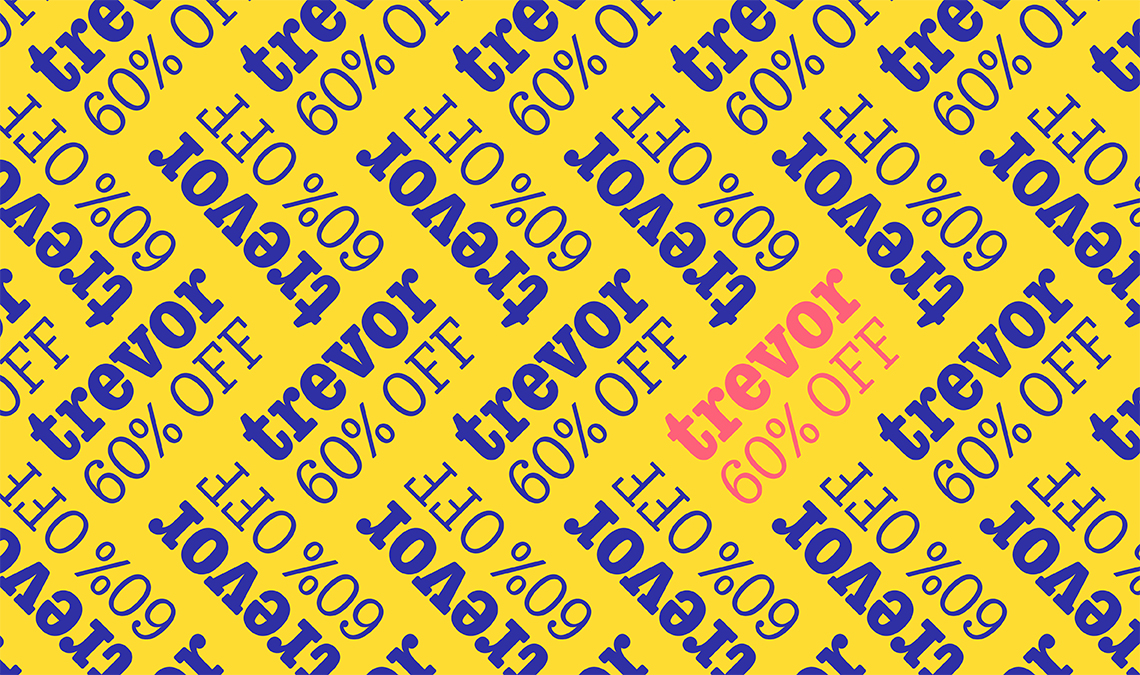
Trevor’s almost monolinear weight and high x-height give it a typewriter look in the extralight and light weights, but the whole family was made to work alongside many other font styles, design work, and information structures. It feels right at home in packaging and advertising, its sturdy verticality and narrowness fit the needs of headlines and intro text, and its seven weights are primed for plays and involved text needing many layers of distinction. The black weight is treated like a separate display style with altered ball terminals and serifs to capitalise on the added heft.